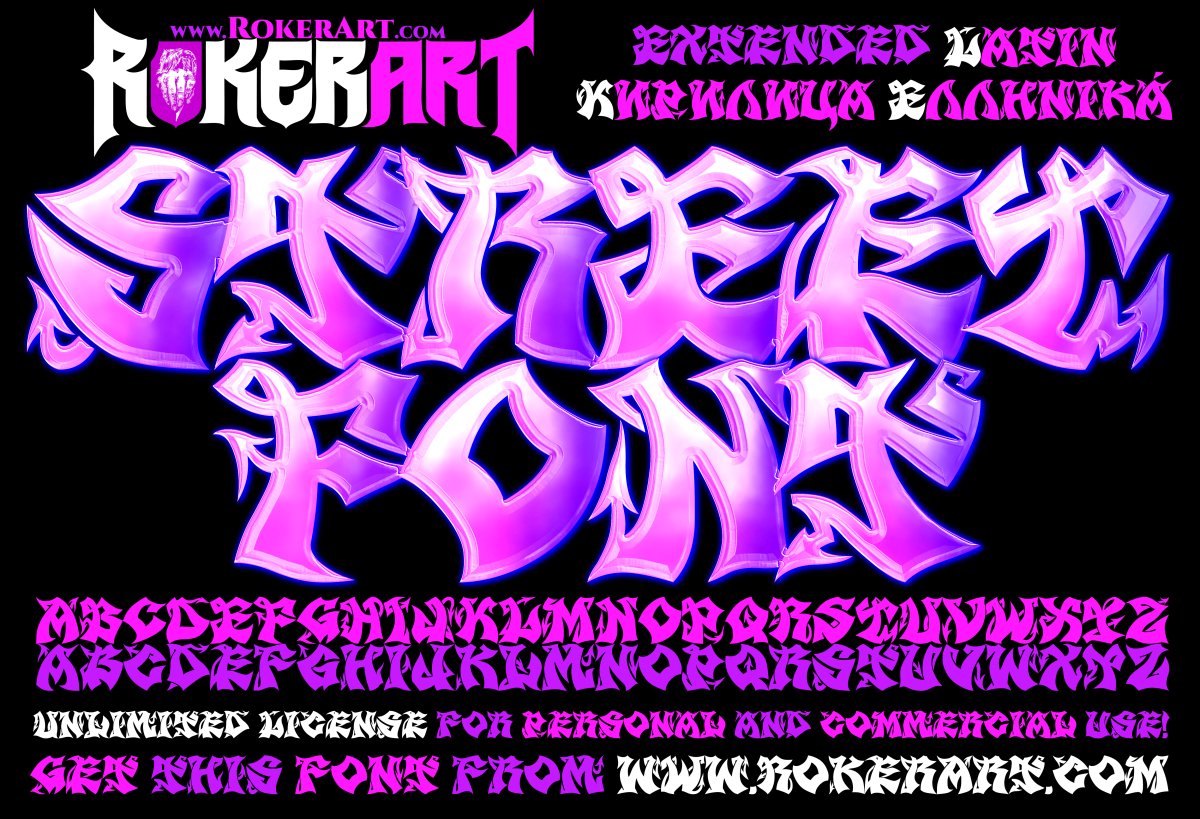
Street Font
RokerArt presents: Street Font!
Here is a great font that is rooted in street graffiti and combines its style with metal, hip-hop, punk, and urban culture. You can use the combination of uppercase and lowercase letters creatively to create your logo or slogan. Although the font is designed specifically for logos, it contains all the necessary letters, numbers, and symbols to write entire texts, descriptions in videos and images, and much more. Use this font in your designs for merchandise, video content, and online and print ads. Just write whatever you want, add an effect or color, and you have a finished design, thanks to the beautiful detail of this font. The font is light enough to use on your website, videos, and other content that requires it.
The font contains an extended Latin alphabet for almost all European languages, Cyrillic, and Greek.